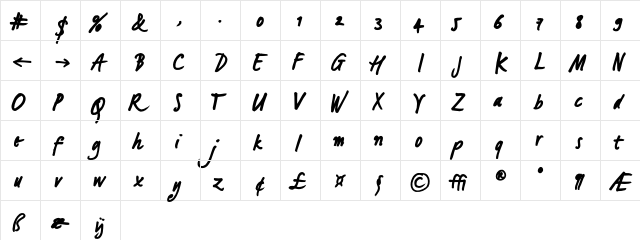
LucasHandFeetBold Regular
Design Context for LucasHandFeetBold Typeface
LucasHandFeetBold brings a calligraphic fluidity to the page — its connecting strokes and expressive curves give it an unmistakably human quality. Its bold stroke weight gives it real presence on the page.
Font Pairing: Combine LucasHandFeetBold with a simple geometric sans for maximum contrast — the tension between flowing curves and clean structure is a classic typographic pairing.
Pro Tip: Use LucasHandFeetBold for short runs of text — names, titles, or taglines. Extended body copy in script faces tires the eye quickly.